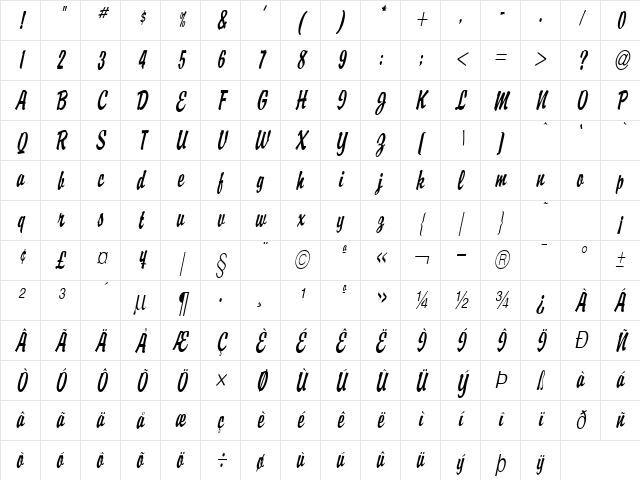
Brisk Italic
Brisk Family
Design Context for Brisk
Brisk is a composed and adaptable typeface that performs quietly and consistently across a wide range of design contexts. The slanted form adds forward momentum and visual energy.
Pro Tip: Use Brisk for emphasis, pull quotes, and subheadings where its slanted energy can add rhythm to the layout.